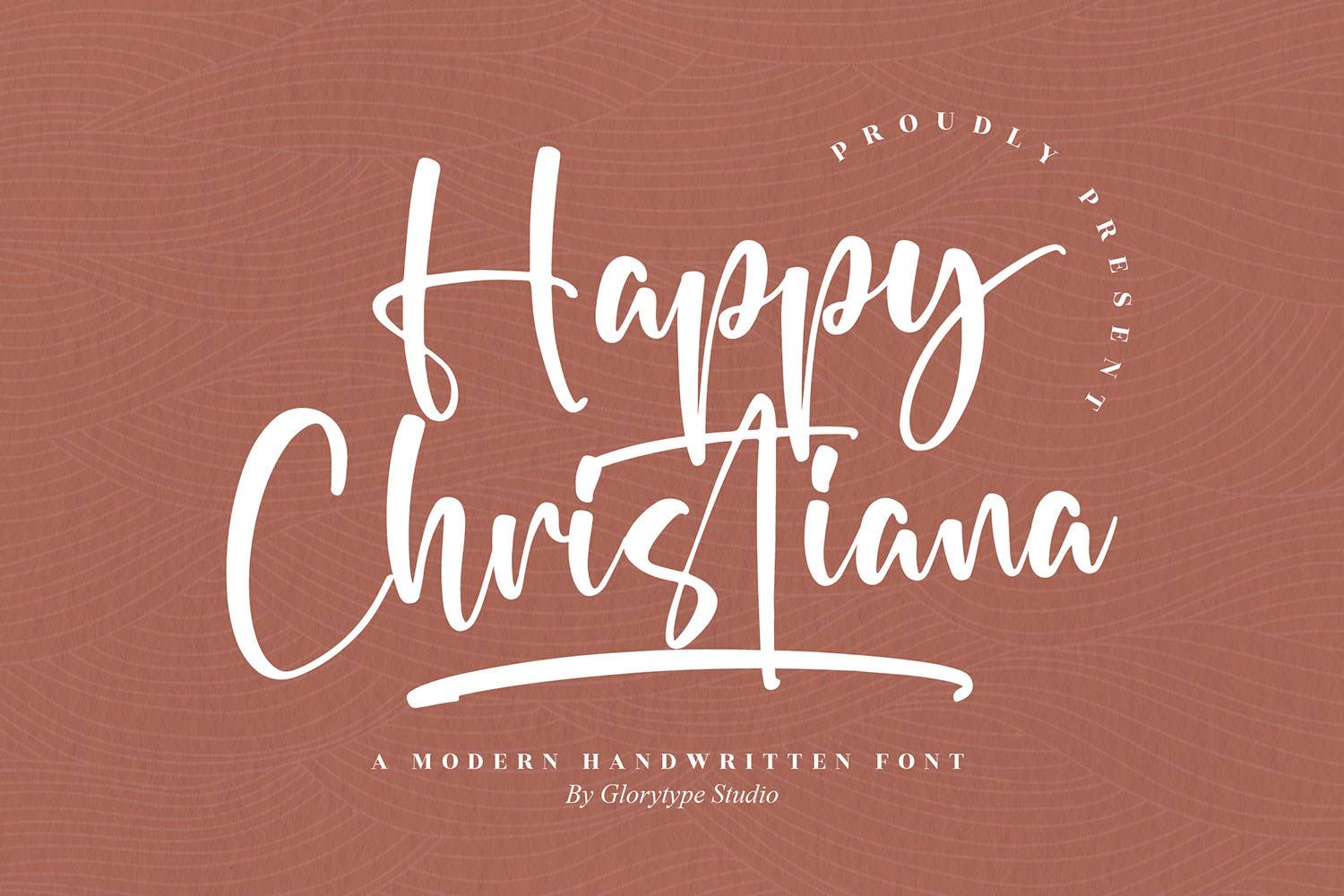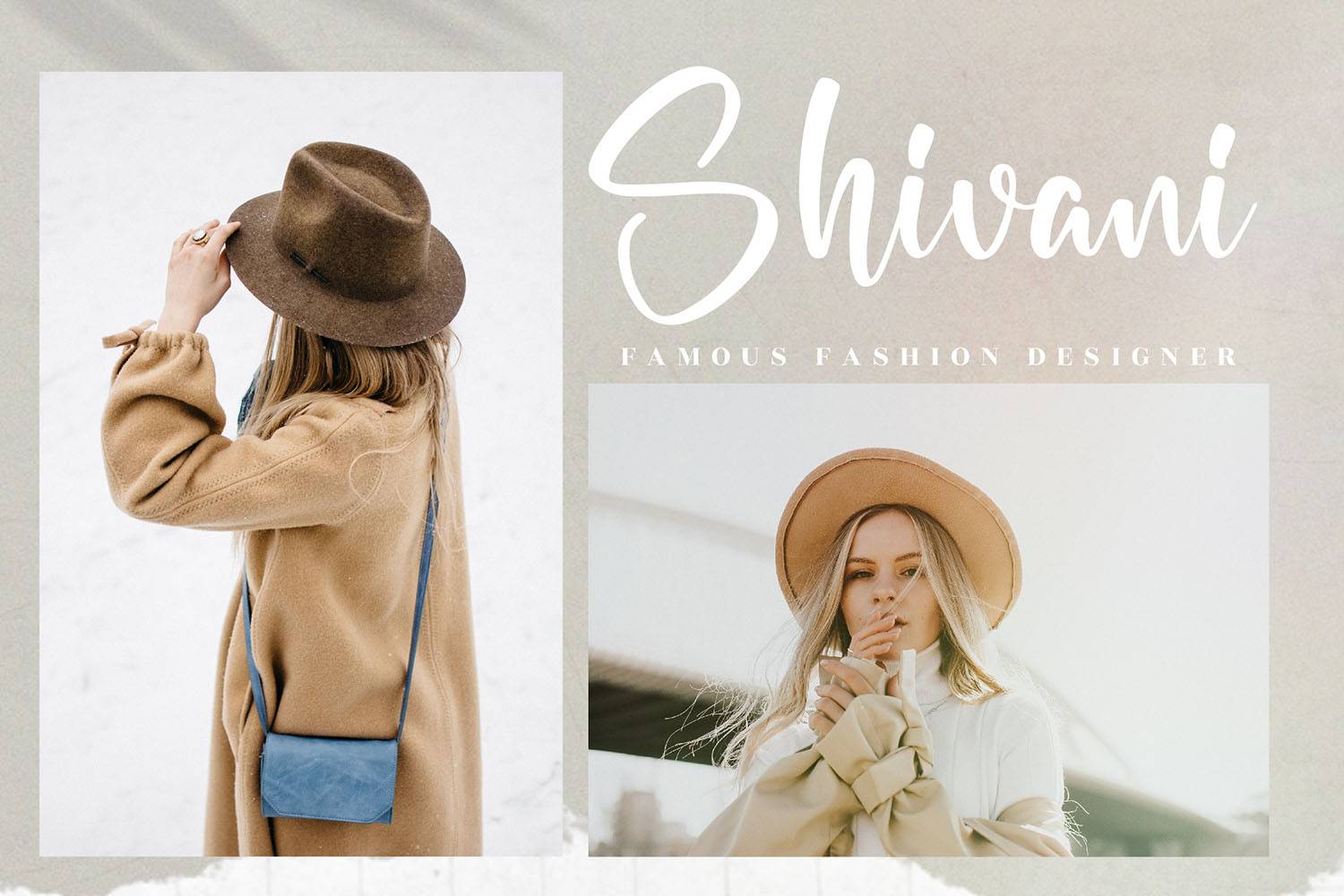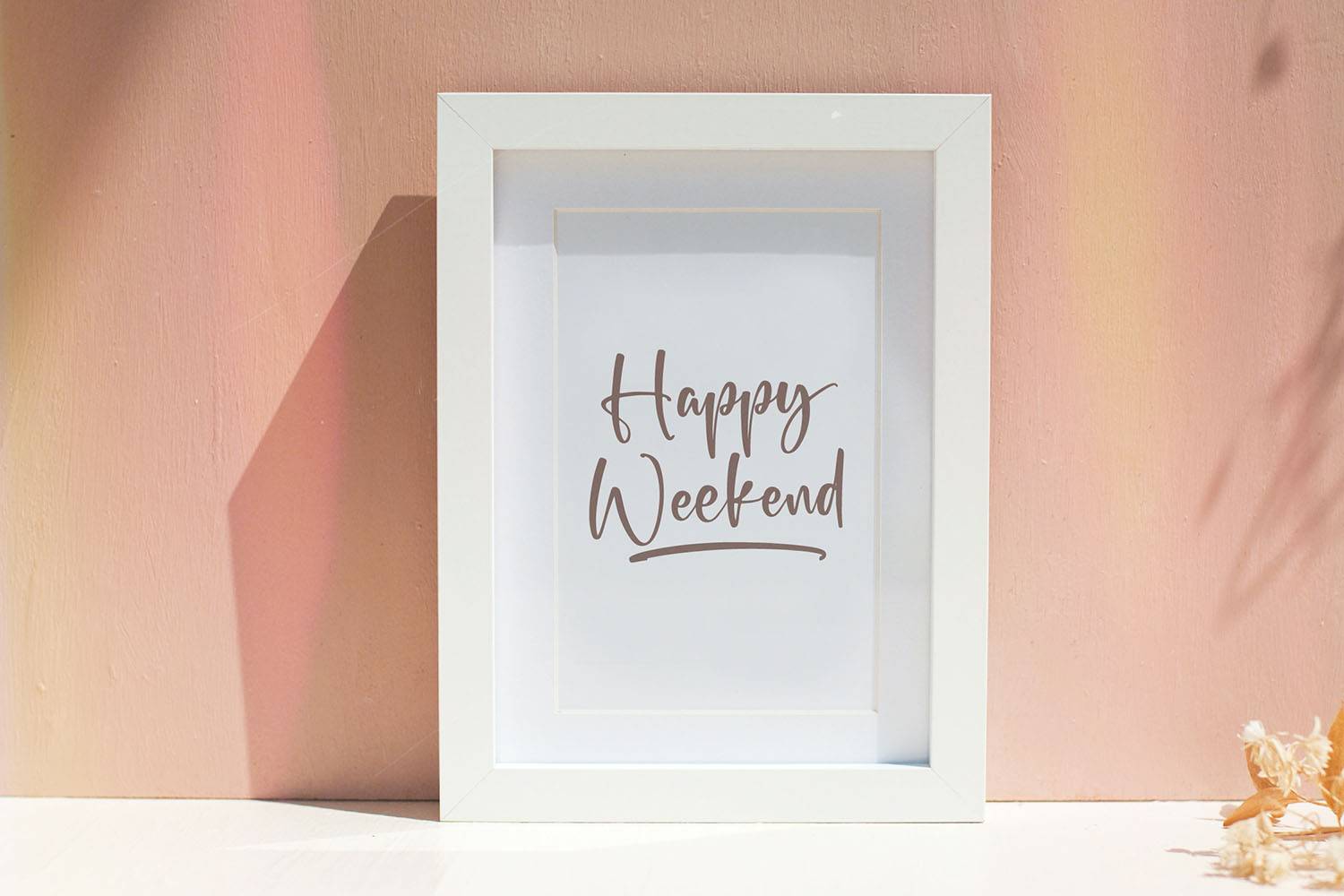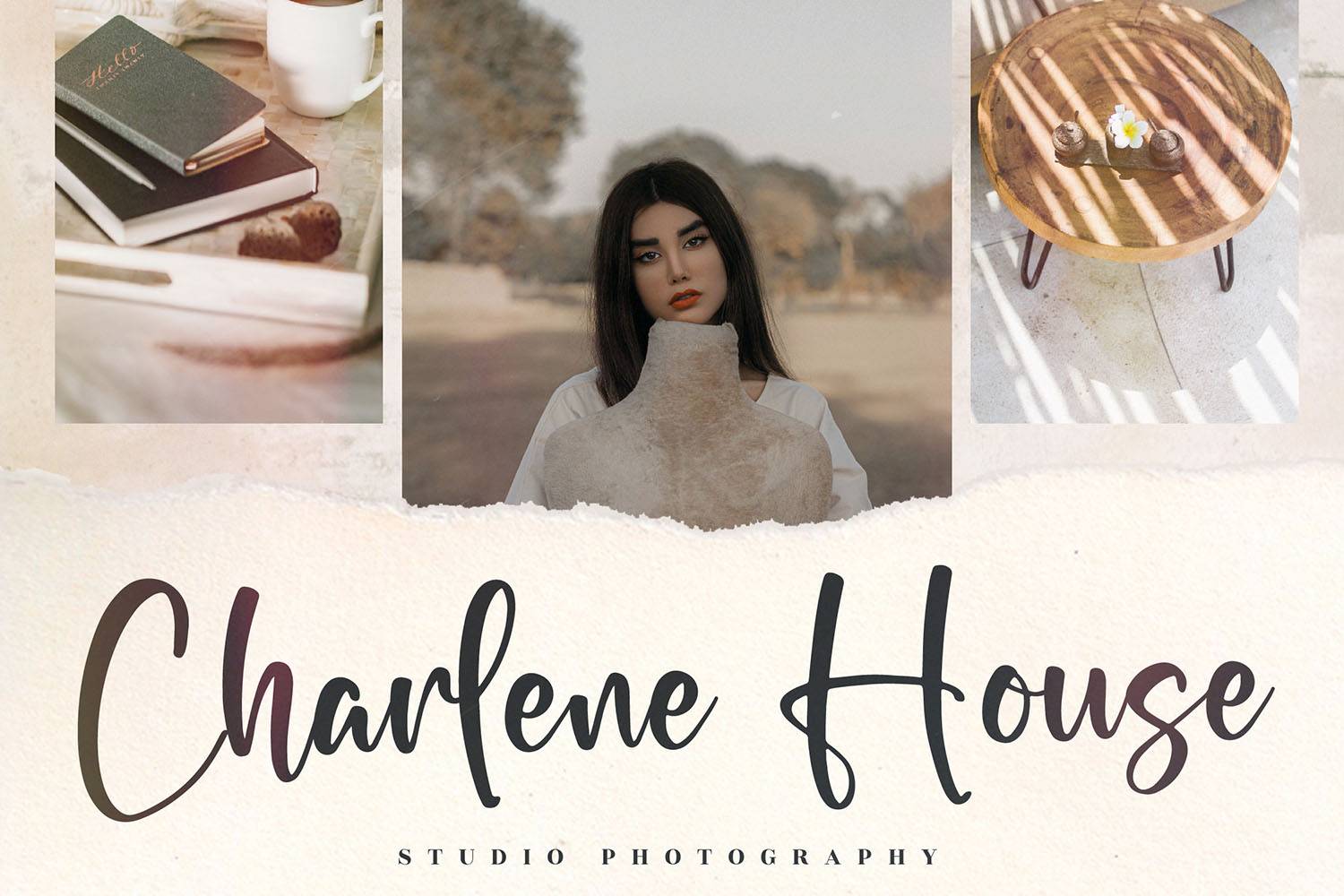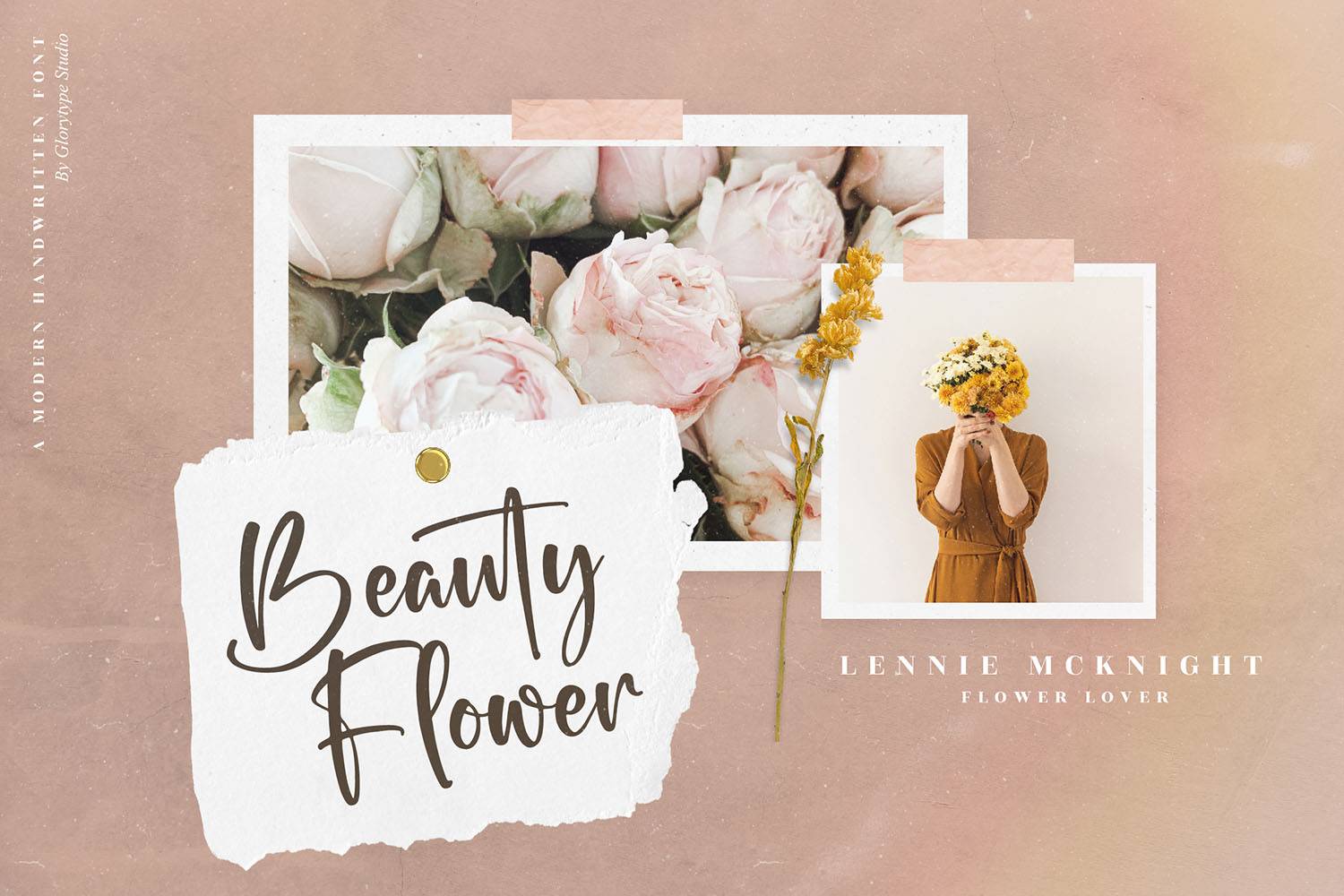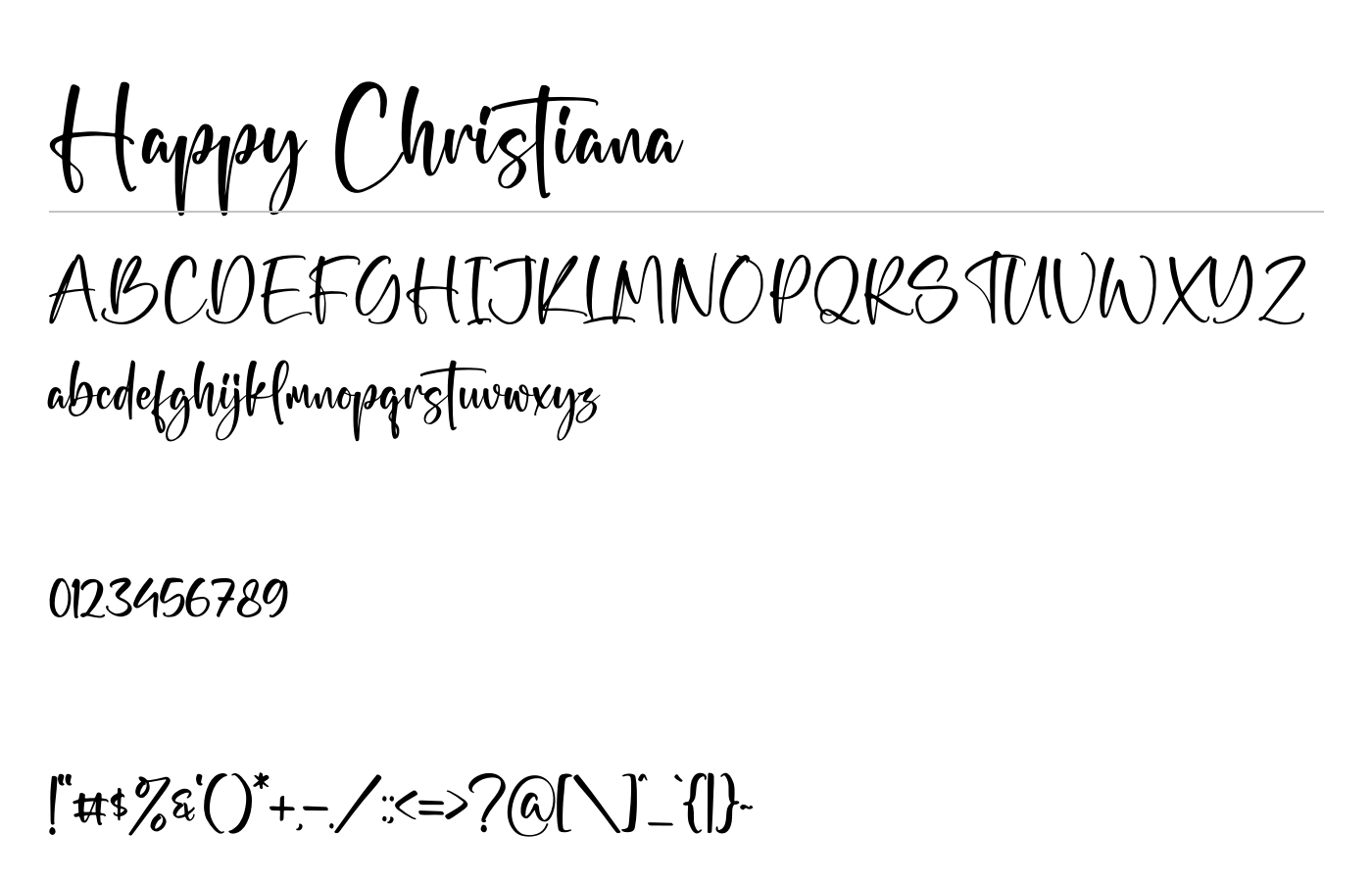
Happy Christiana is a lively and elegant handwritten script font that combines playful charm with a touch of sophistication. It features a smooth, flowing stroke with moderate contrast and a casual, natural feel, making it perfect for creative branding, invitations, and stylish headlines that want to convey warmth and personality. This font works best in designs that need a personal, friendly touch without sacrificing readability or style.
Happy Christiana Font
About Happy Christiana Font